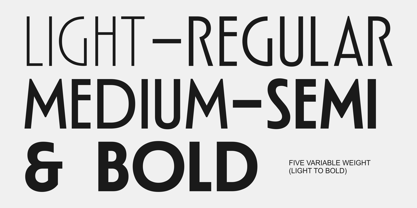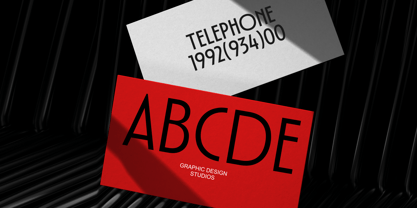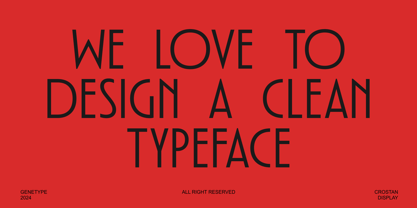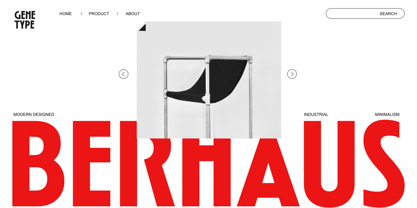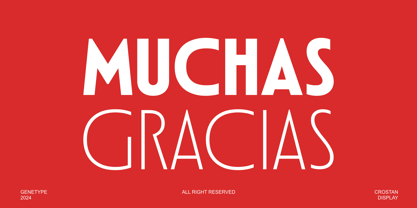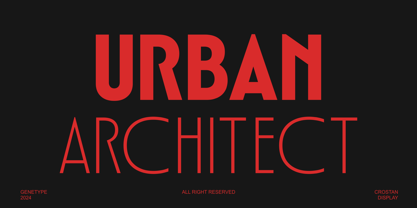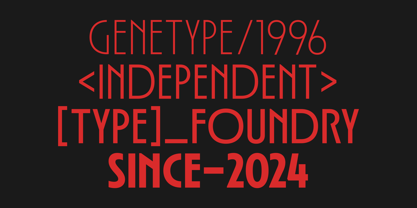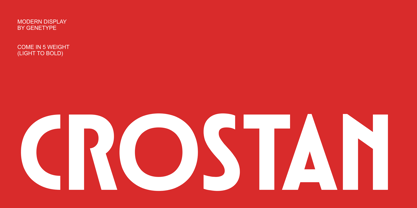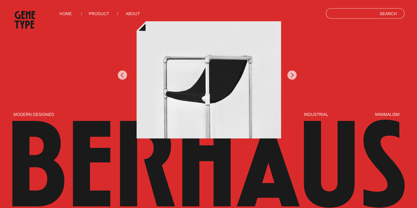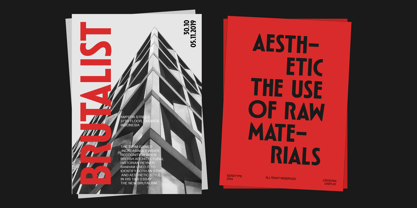
Crostan
by Genetype
The Crostan Font Family was designed by Bagus Arya Kirana and published by Genetype. Crostan contains 5 styles and family package options. More about this family
Introducing Crostan Modern Display Font
Inspired by the iconic Bauhaus movement, this fresh font family blends sleek, geometric shapes with a clean, minimalist vibe. Perfect for designs that need a bold, modern look—whether it's a standout logo, a sleek website, or striking print materials. With 5 versatile weights to choose from, Crostan Modern Display Font is your go-to for adding personality and a dash of contemporary flair to any project.
Designers: Bagus Arya Kirana
Current Foundry: Genetype